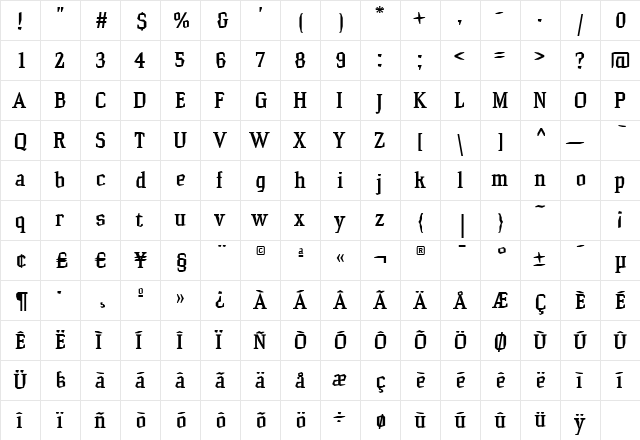
HammerheadMedium Regular
Design Context for HammerheadMedium Typeface
HammerheadMedium takes a measured approach to typography — its balanced proportions and neutral character make it a reliable workhorse for both digital and print work.